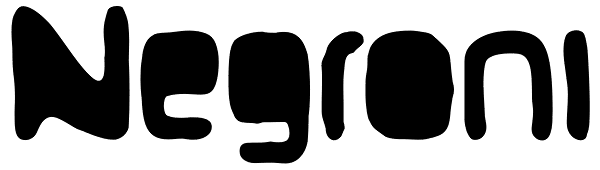
Negroni
What font to choose when it comes to malevolent, wry or downright bad seeded phrases? Negroni can show a nervous, chaotic facade ideal for those rancorous posters, flyers or anonymous messages. Subtly irregular contours and a slight, almost...